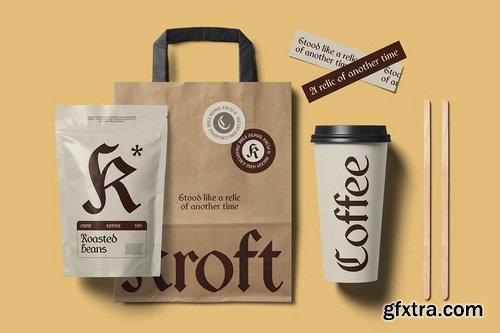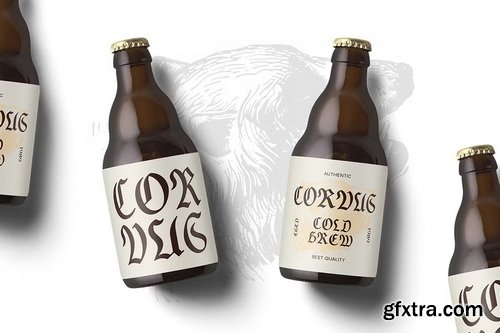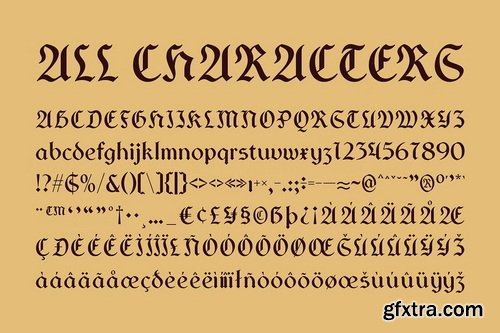
CreativeMarket - CS Pierson – Gothic Font
Modern Gothic Display Font CS Pierson is a modern Gothic display font that seamlessly blends traditional Gothic elements with a sharper, contemporary edge. Its bold letterforms, intricate details, and refined structure make it a powerful choice for designs that demand strong visual impact with a touch of sophistication. Perfect for Music Posters and Creative Projects CS Pierson’s bold and expressive form makes it a great choice for music posters, album covers, and creative branding. Whether for dark aesthetics, alternative themes, or sophisticated modern visuals, this font delivers a powerful and captivating look that commands attention.